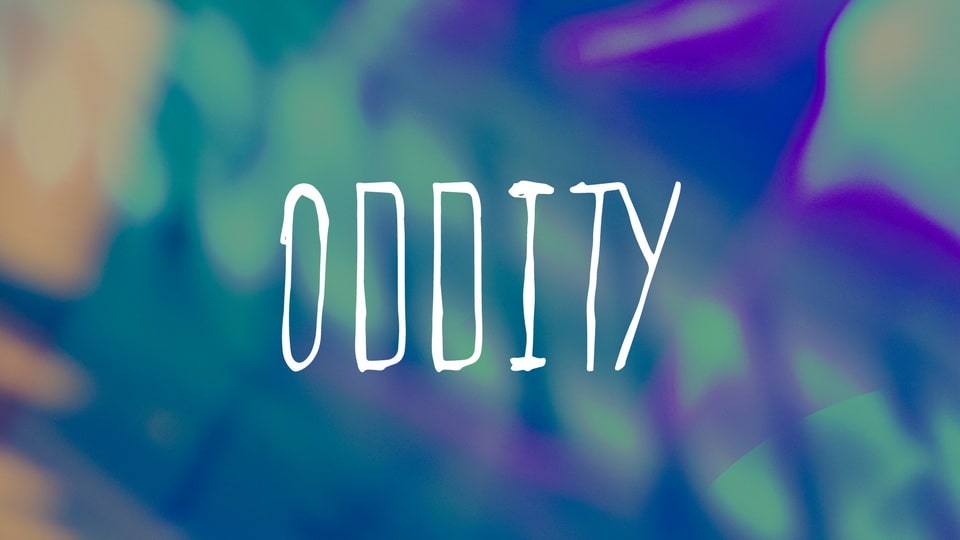
Download Oddity font, a tall and quirky handwritten typeface that conveys a warm, organic feel. With its funny look Oddity font is perfect for notes, quotes, cards, kid’s books and any project that needs a personal touch.
Designer: Eric Mills